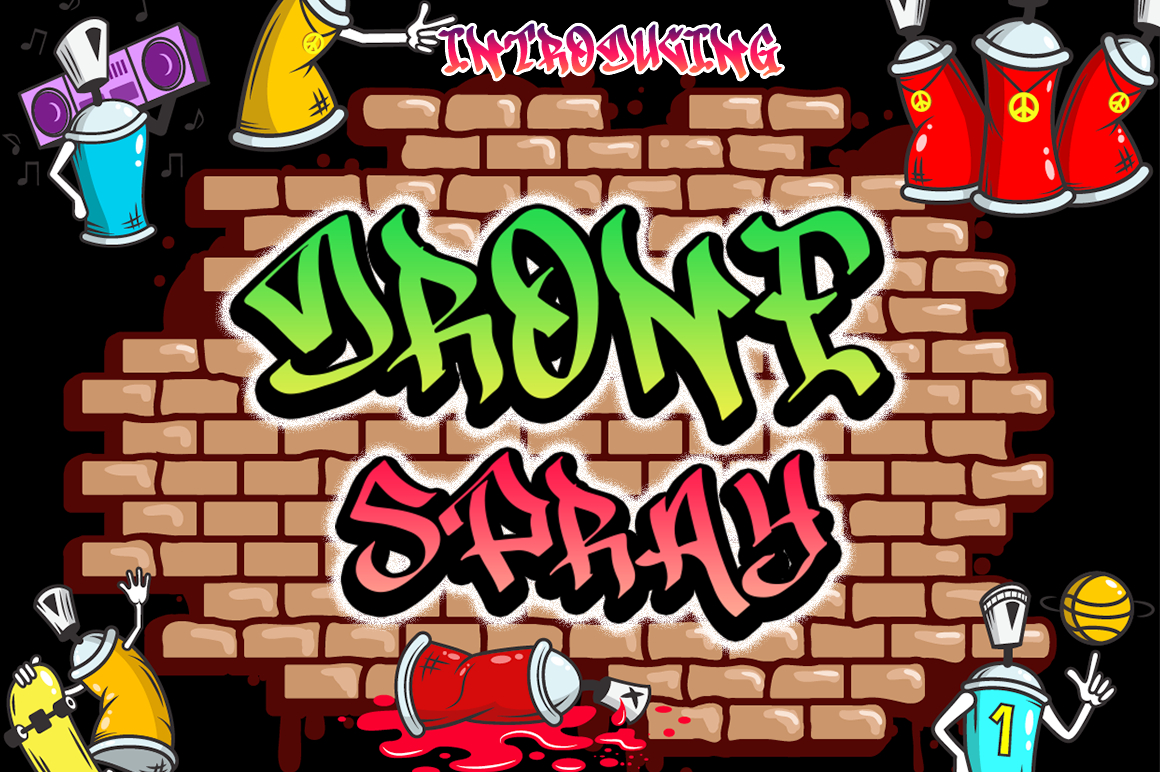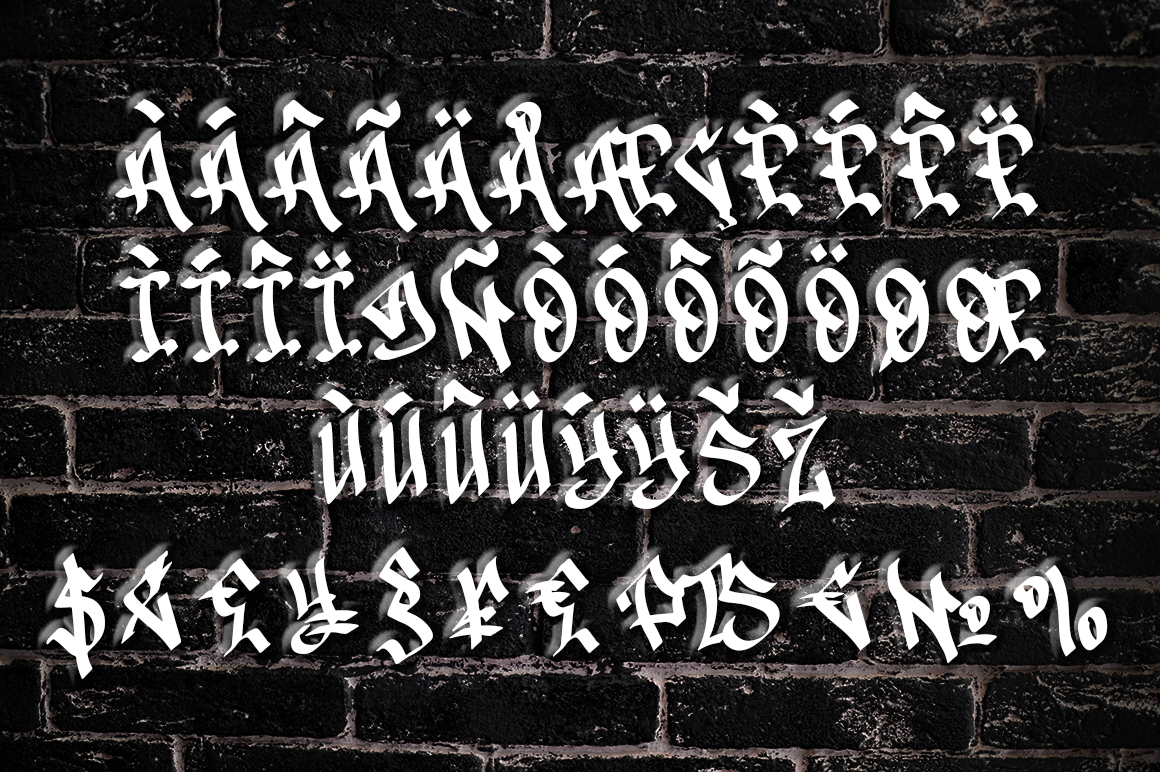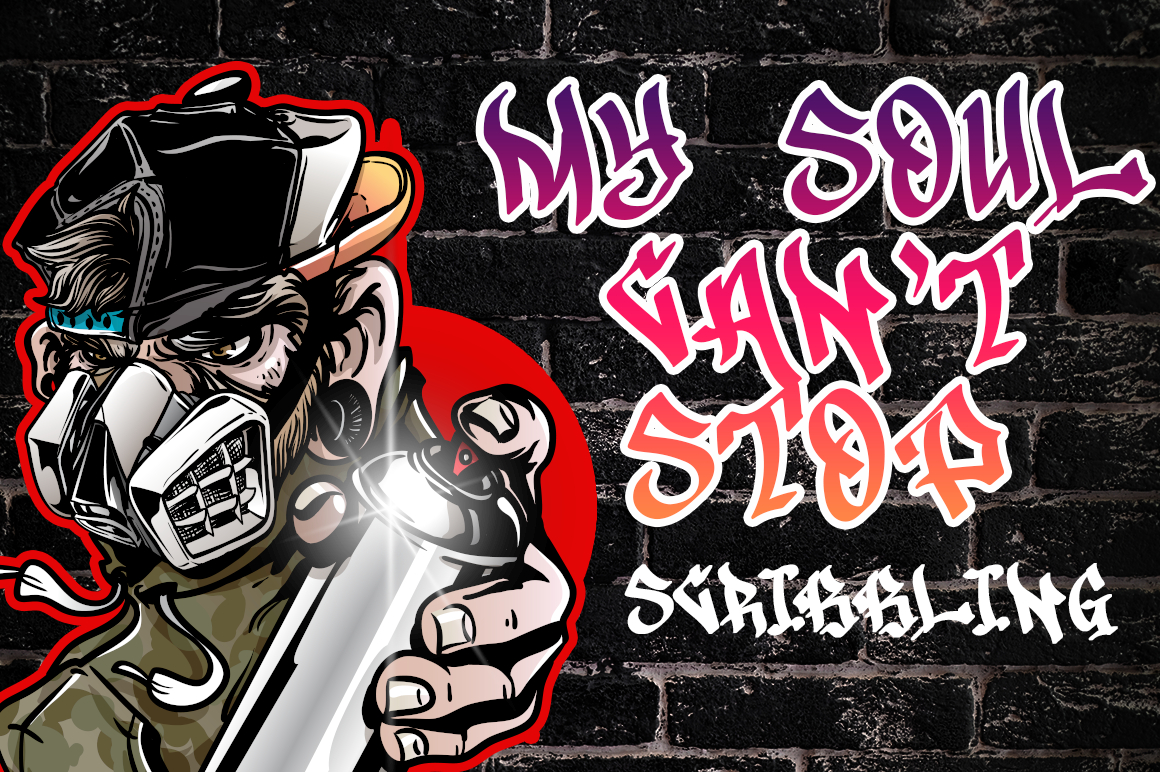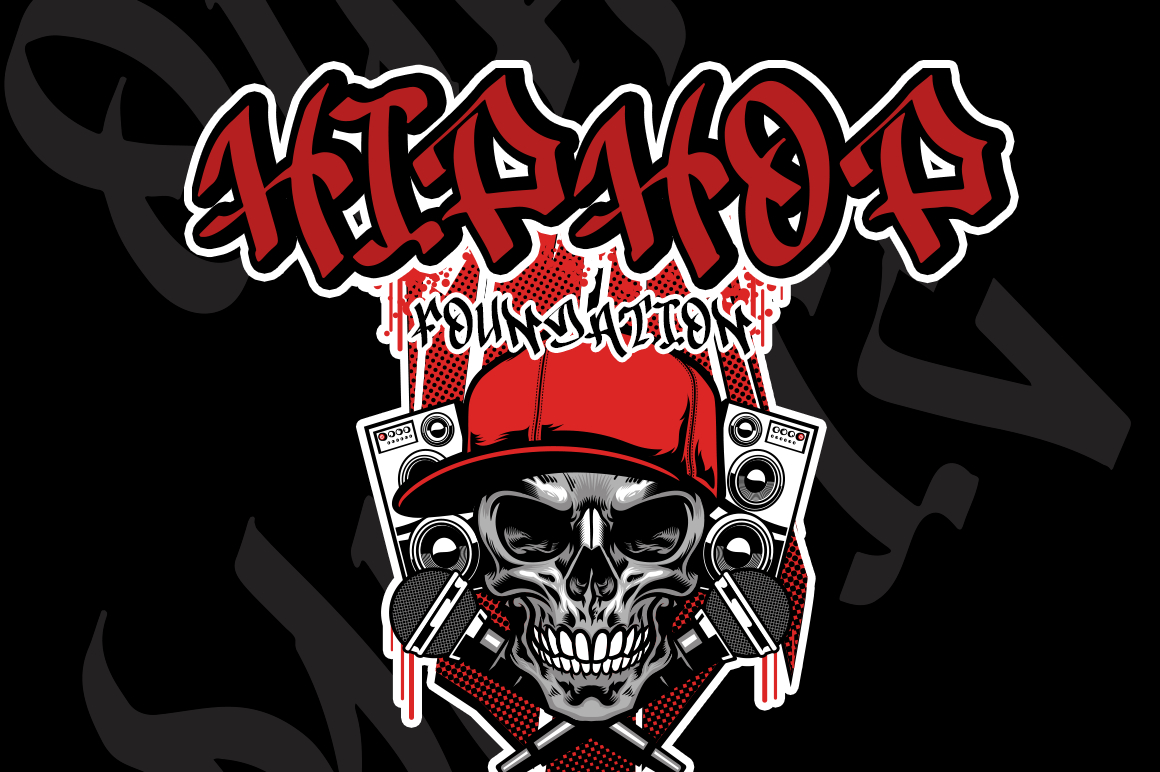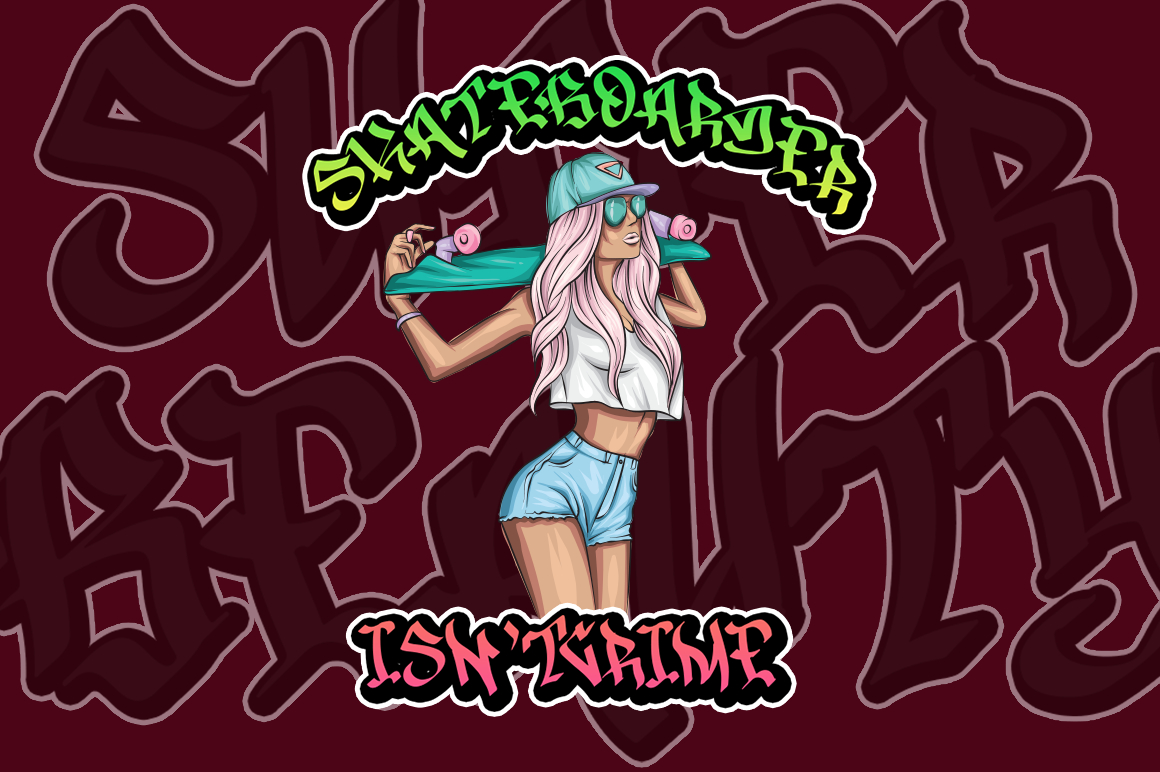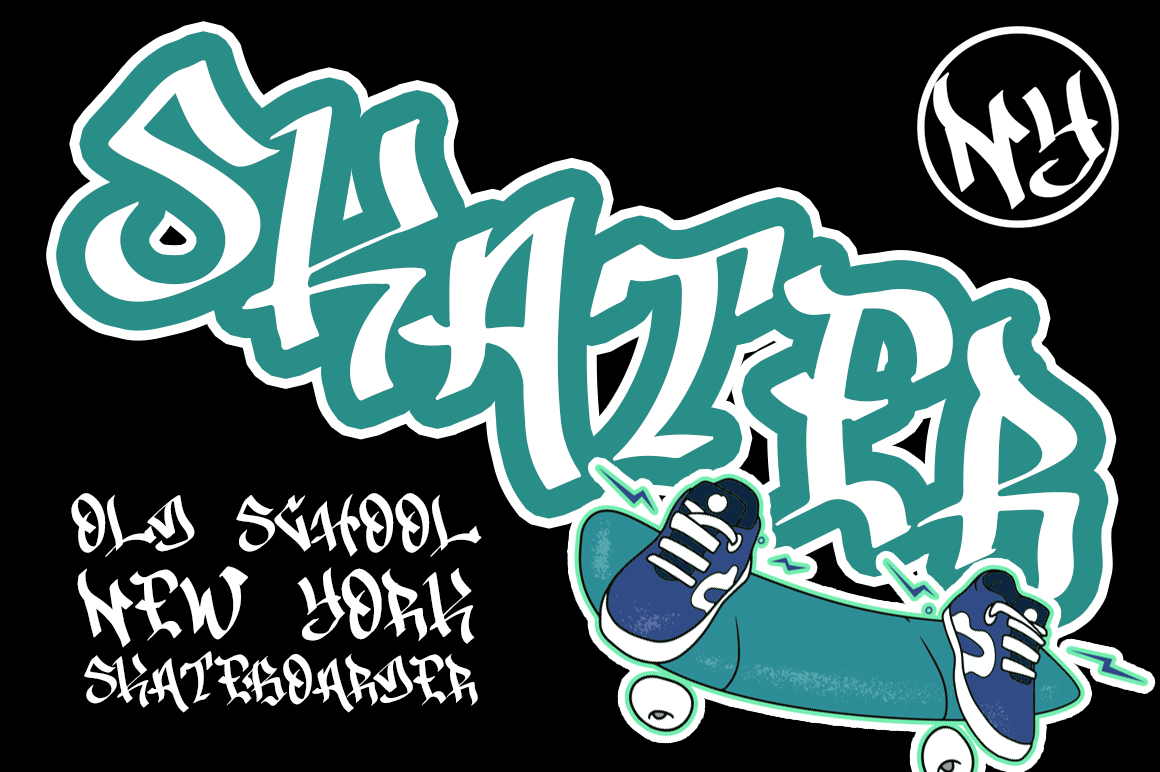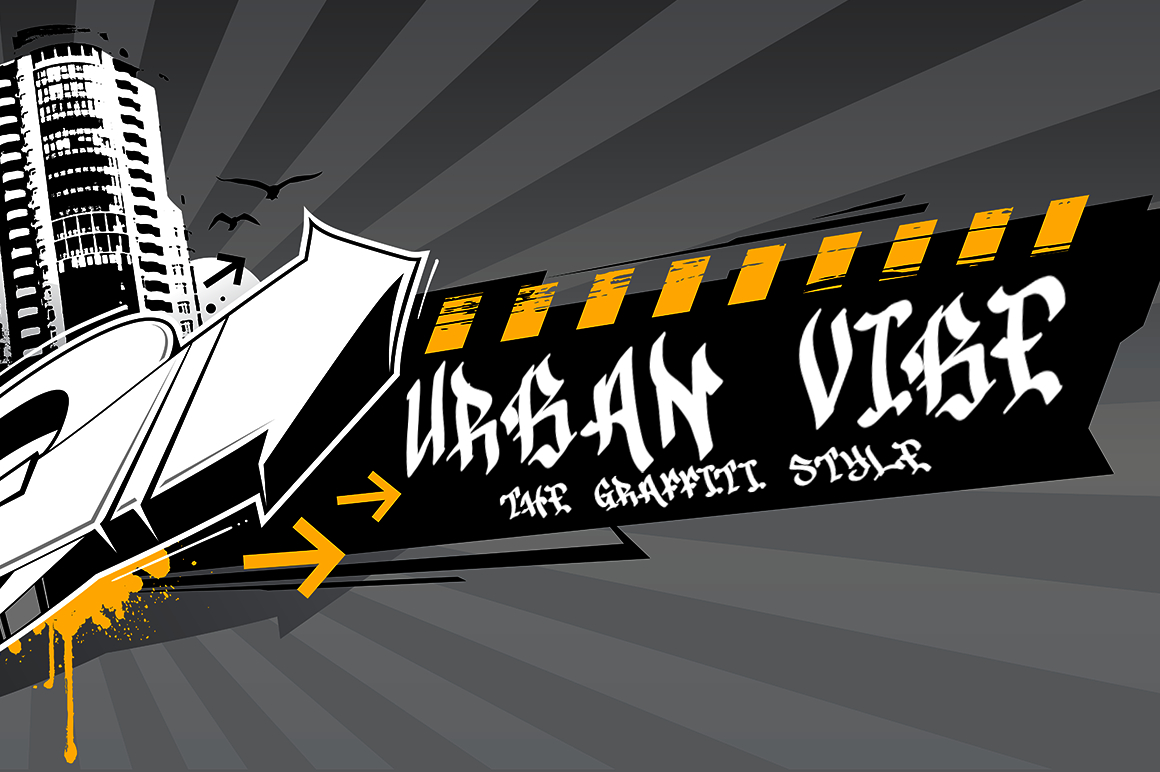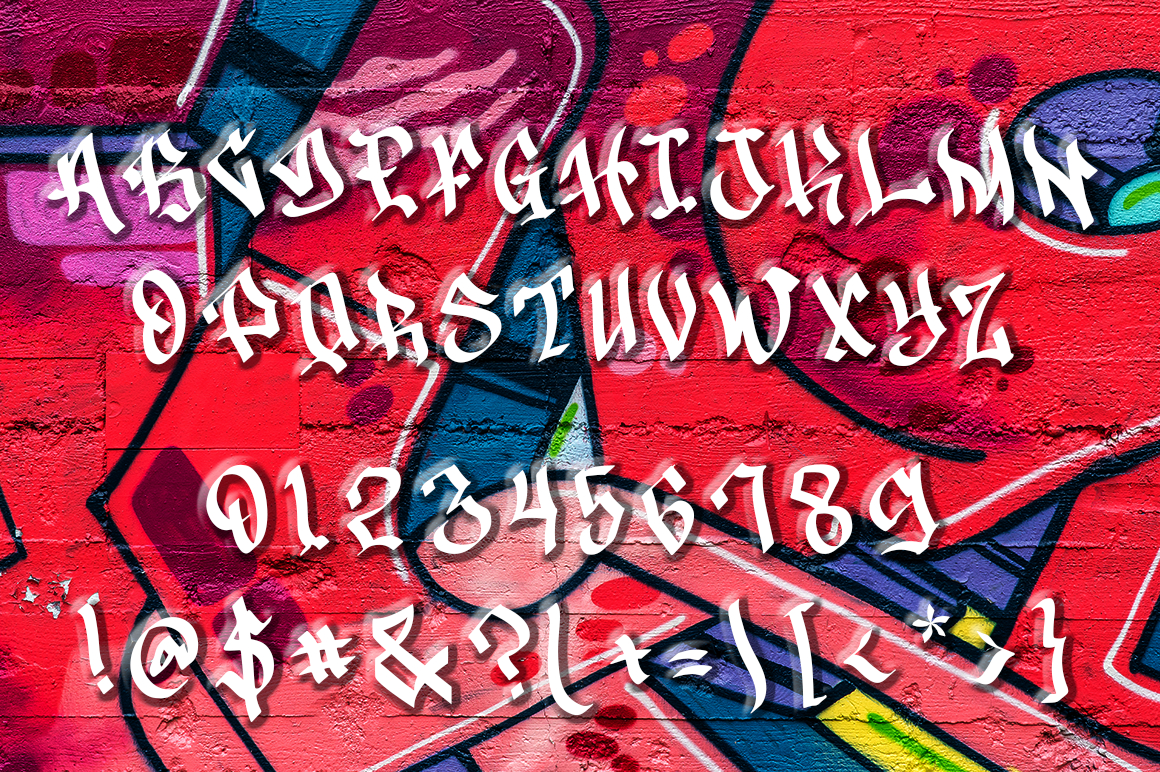
Drone Spray Font
Drone Spray is an awesome, graffiti-styled blackletter font that has a futuristic, street art vibe. This font is suitable for designs such as t-shirts, sportswear, logos, advertisements, clothing, and more.